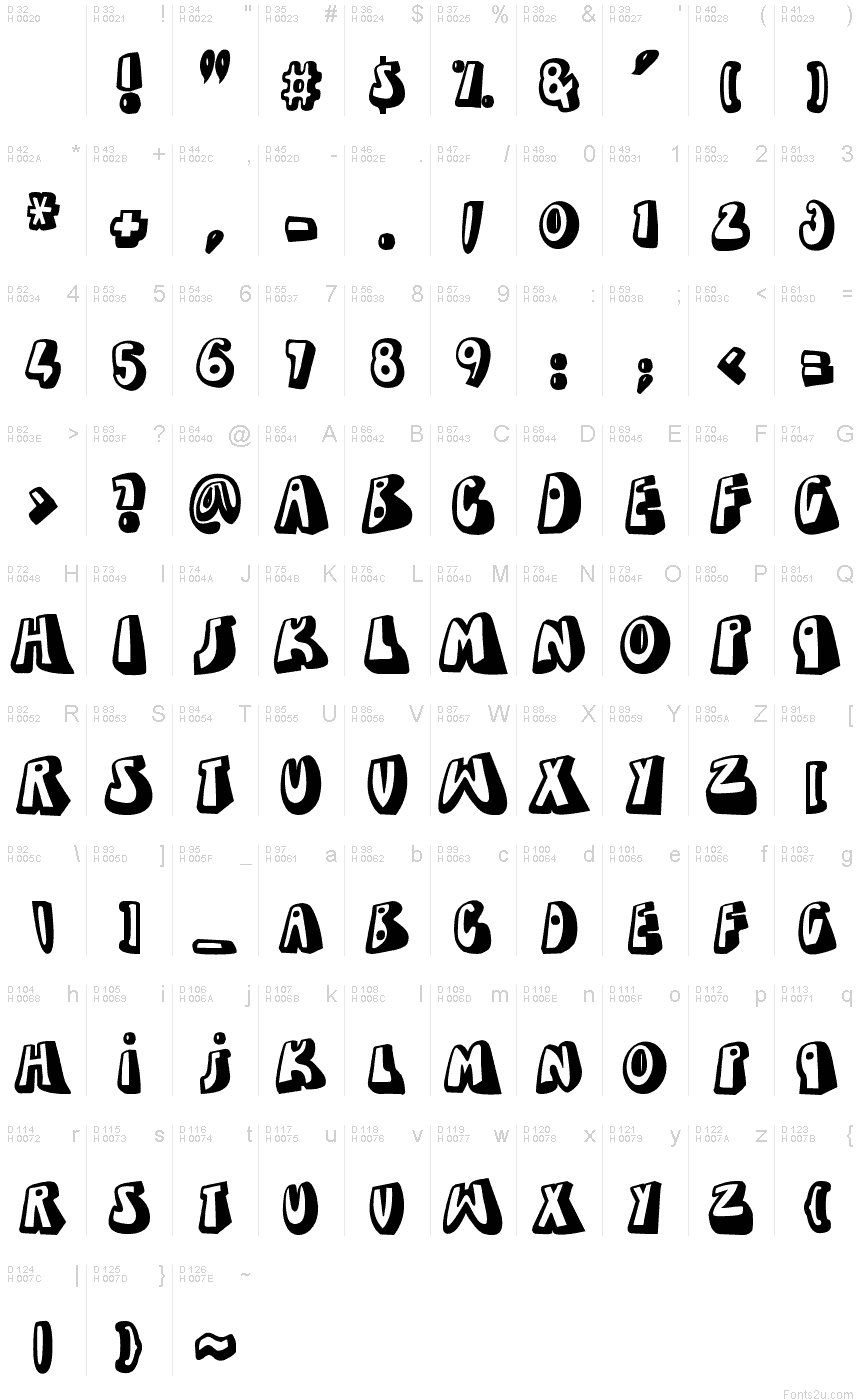
Dead Wallace by Paintblack is a free cartoon display font with oversized, lurching letterforms. Its uneven widths and swollen curves make the line look hand-cut and restless. Small white notches and inset shapes break up the dense silhouettes.
Young audiences and fans of offbeat comics are the clearest match for its unruly humor. It suits children's entertainment, music posters, game graphics, and novelty packaging, especially when the lettering can echo drawn characters. Comic titles are its strongest use.